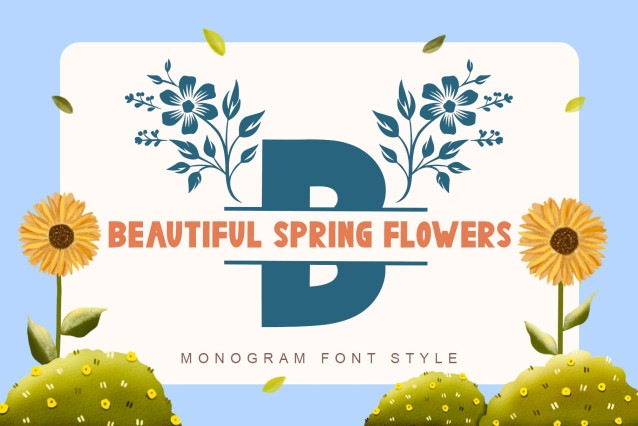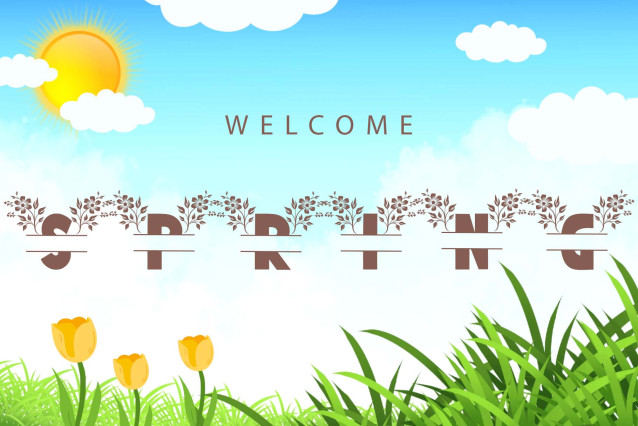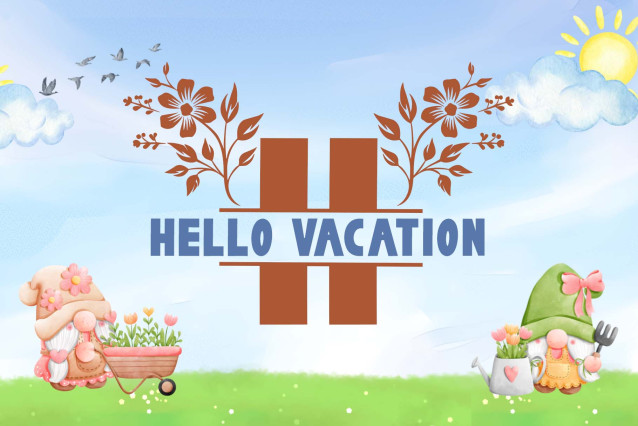
BEAUTIFUL SPRING FLOWERS MONOGRAM FONT
Beautiful Spring Flowers Monogram Font is a unique and beautiful monogram font. This font is equipped with monogram letters, uppercase, lowercase, numerals, punctuations and multilingual support. Very suitable for weddings, invitations, logos, stickers, posters, prints, branding, summer, spring, easter and others.